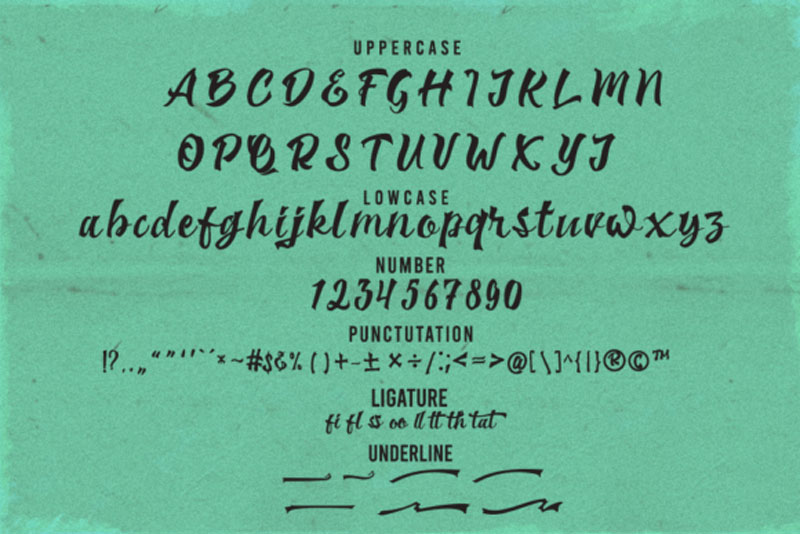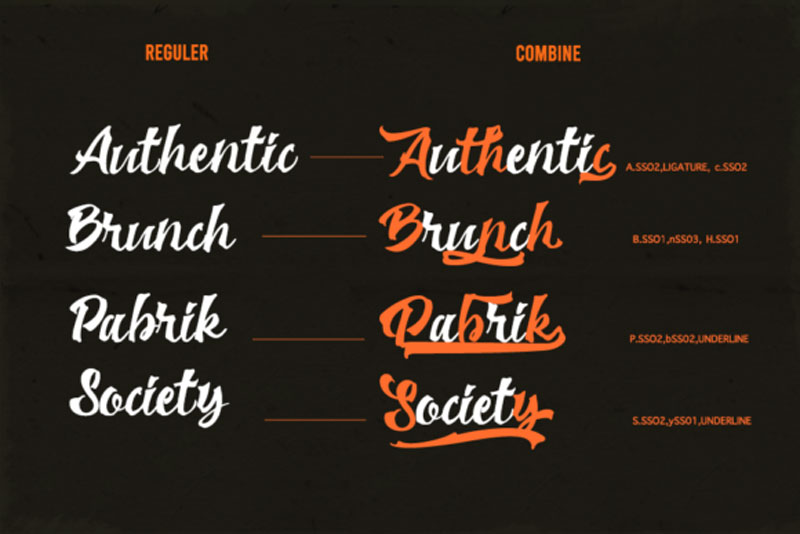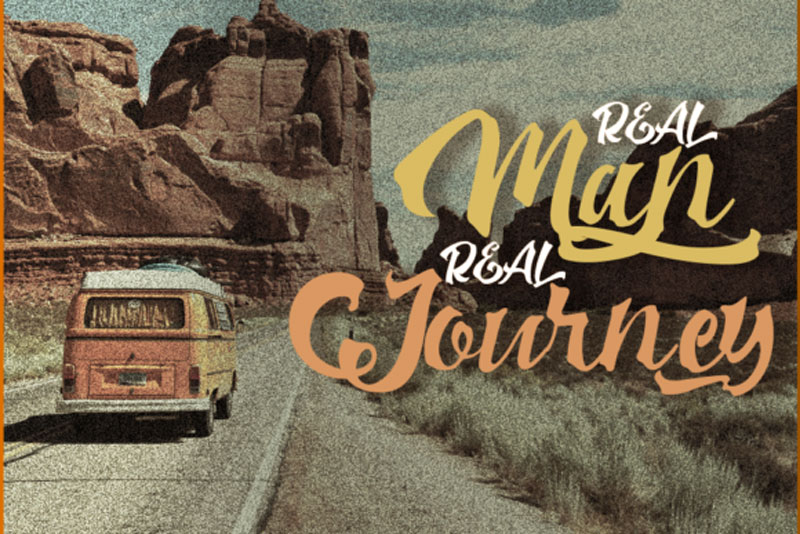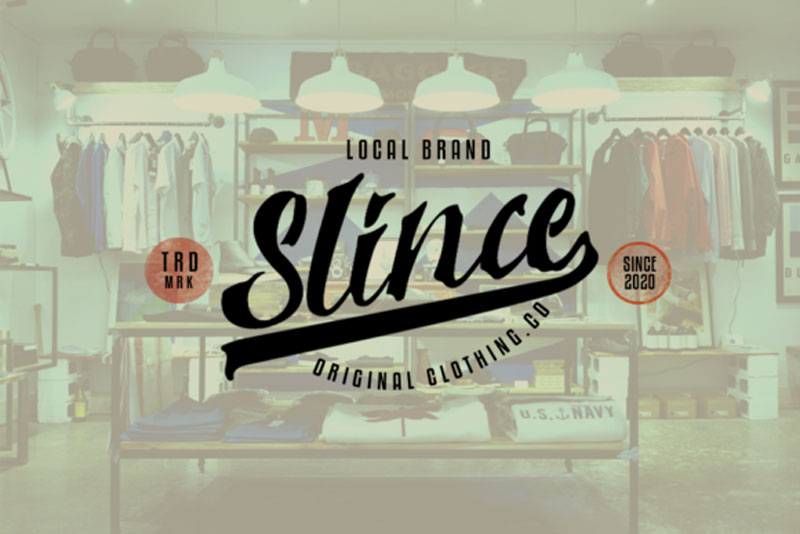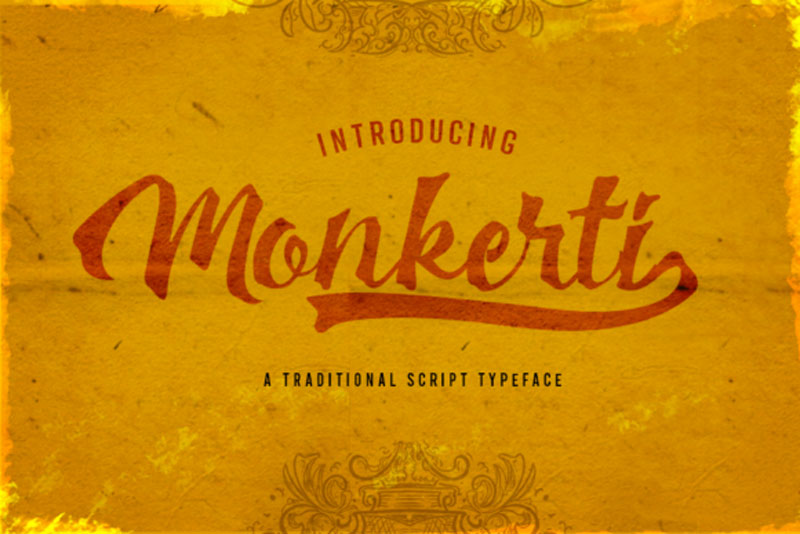
Monkerti Font
Monkerti feels playfully nostalgic and delivers an incredible vintage aesthetic. Use this handwritten font to add that special retro touch to any design idea you can think of! Also checkout Roberts // Strong Bold Brush Script.